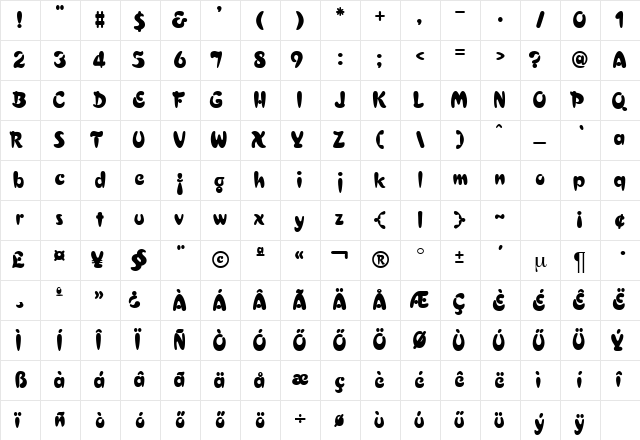
Hu_Reflex Regular
Design Context for Hu_Reflex
Hu_Reflex is a composed and adaptable typeface that performs quietly and consistently across a wide range of design contexts.